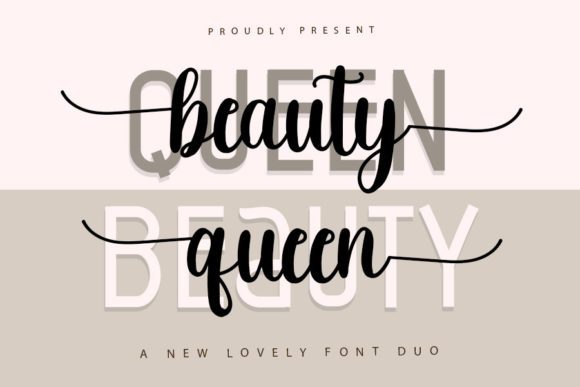
Indulge in the allure of Queen Beauty, a captivating script font family that will add a touch of elegance and charm to your creative endeavors. Carefully crafted by the skilled hands at FreshTypeINK, this duo font, comprising both script and sans serif styles, is a versatile masterpiece that can effortlessly adapt to a myriad of projects.
Step into a world of boundless possibilities as you embrace the beauty of Queen Beauty. Its meticulously detailed characters, adorned with delicate flourishes and flowing curves, exude an aura of timeless sophistication. Whether you seek to create heartfelt Christmas letters, heartwarming invitations, or any form of written communication, Queen Beauty will effortlessly elevate your words, leaving a lasting impression on your audience.
Immerse yourself in the enchanting fusion of script and sans serif, two styles that harmoniously complement each other. Seamlessly blend them together to achieve a cohesive and visually striking aesthetic, or let each style shine independently, captivating your readers with their distinct personalities.
Unleash your creativity with Queen Beauty and let your imagination soar. Its versatility extends far beyond Christmas letters. Craft mesmerizing wedding invitations that reflect the joy and romance of your special day. Design eye-catching logos and branding materials that exude professionalism and leave a lasting impact. Create whimsical posters and flyers that draw attention and inspire action. The possibilities are truly endless.
With Queen Beauty as your creative ally, you'll discover a new level of expression and connection with your audience. Its enchanting allure will captivate their hearts and minds, leaving them utterly captivated by your words. Embrace the power of Queen Beauty and unlock a world of creative possibilities.